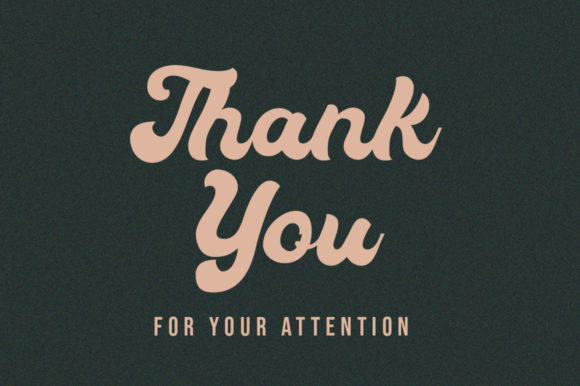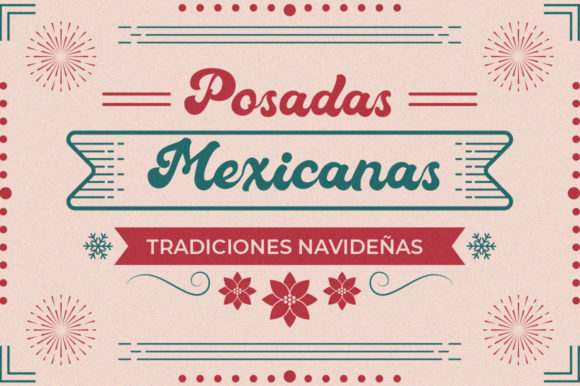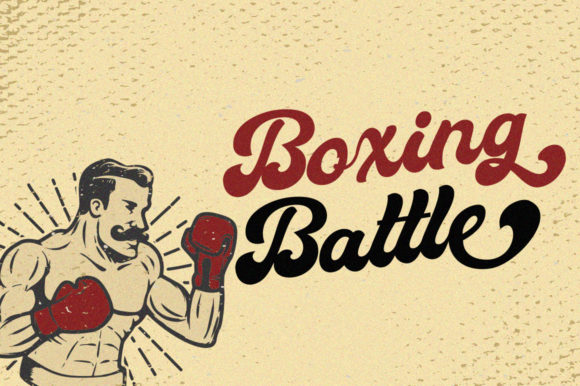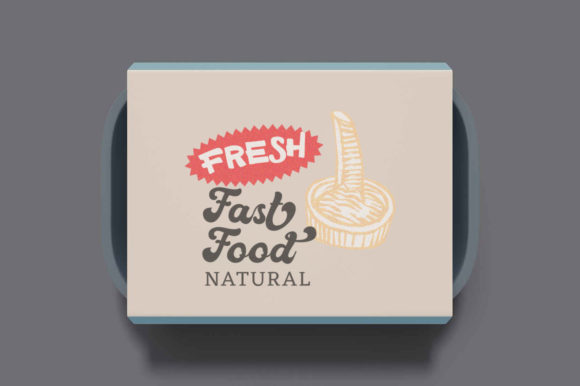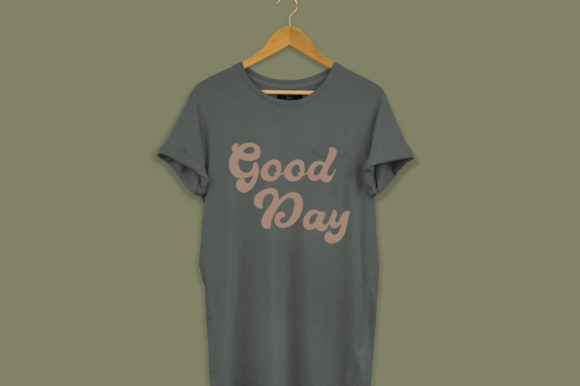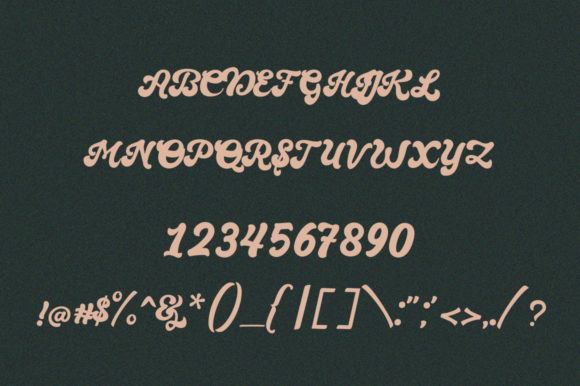
About Suthen Font
Suthen is a retro bold handwritten font. This font reads as strong, confident, and dynamic and can add tons of nostalgic character to your designs.